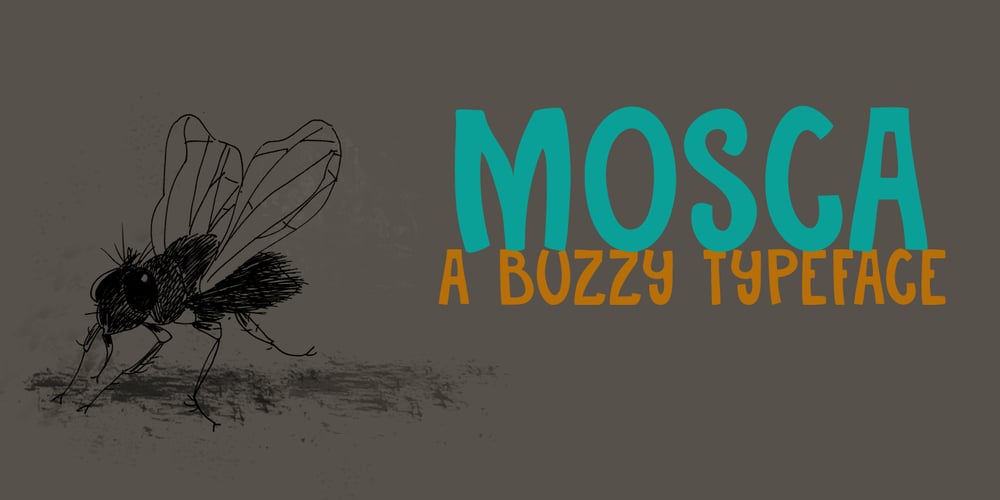
Mosca Font Family was designed by David Kerkhoff and published by Hanoded. Mosca contains 2 styles and family package options. Mosca means ‘fly’ in Spanish – the flying type, not the one in your jeans…). The font is quite lively, loose and elegant at the same time.